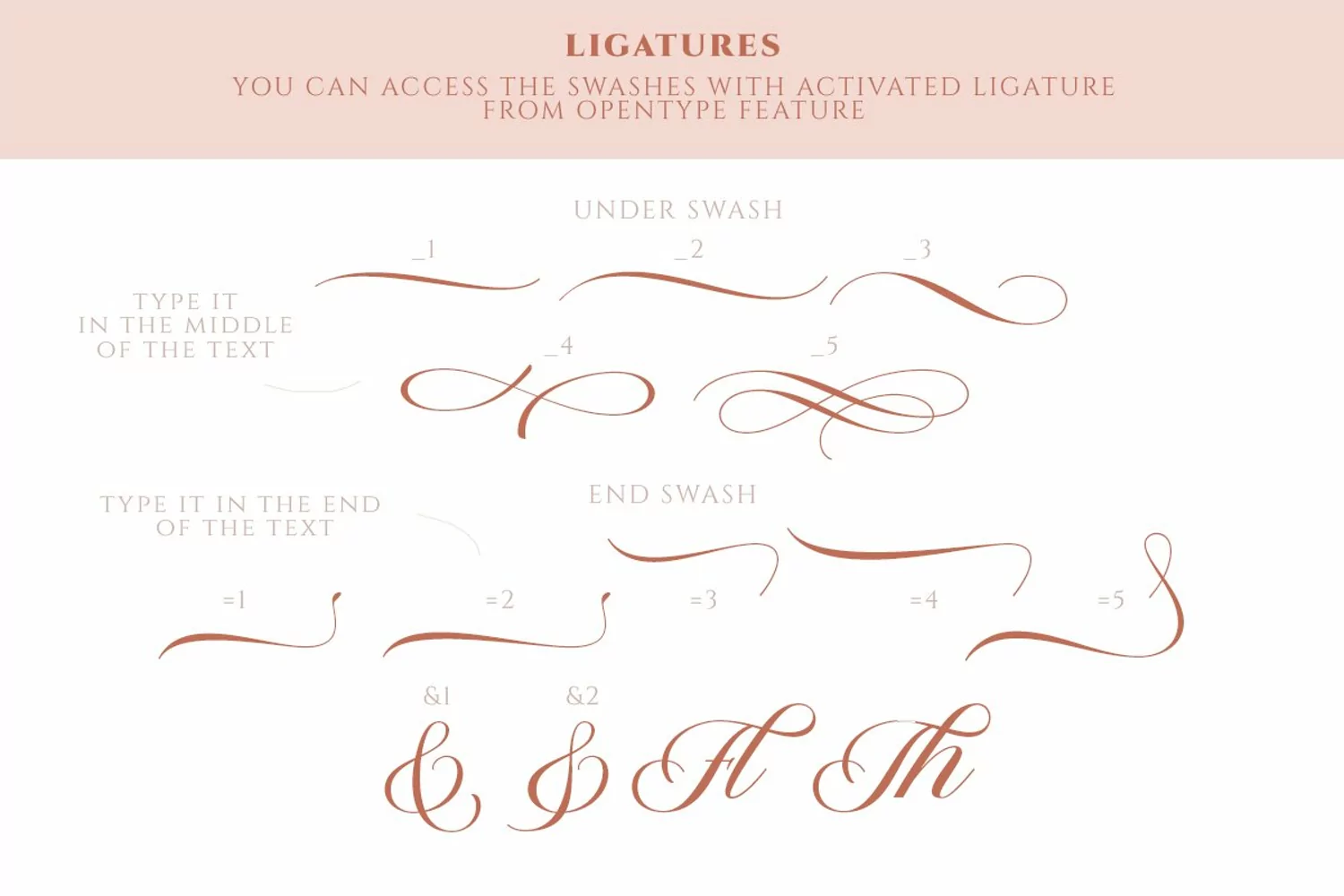
The Postgates is a classic script font that contain a lot stylistic alternate, swash, etc to create your own customized lettering. You can feel the elegant and luxury from this font. It's time to try a new classic script. Use this font for your fashion brand now! Also The Postgates support multi language. This font is also support PUA.